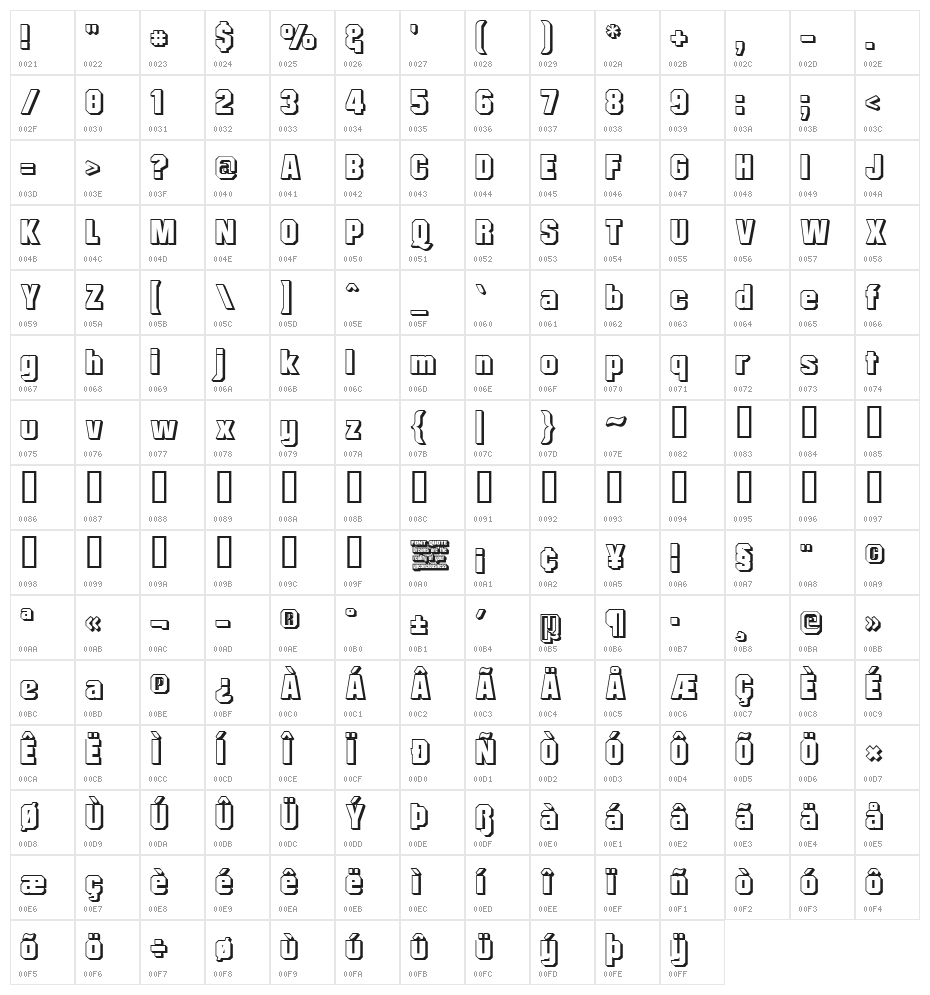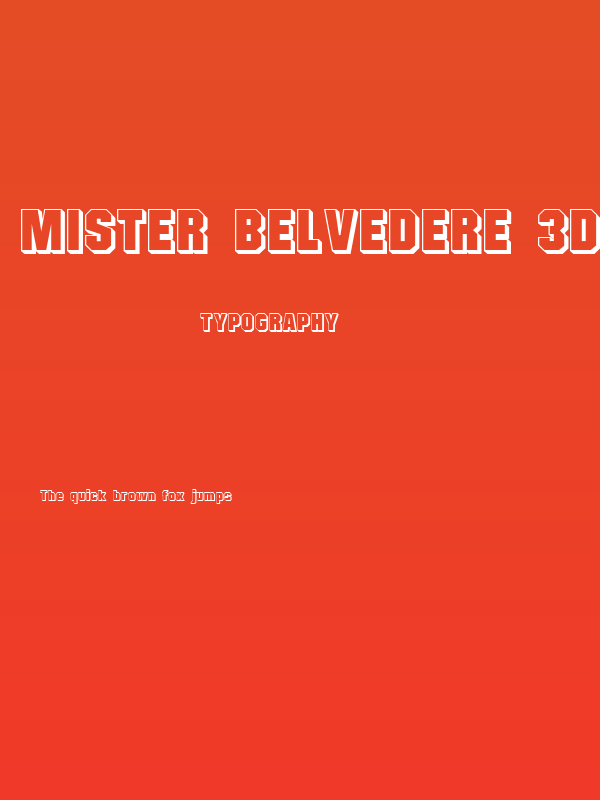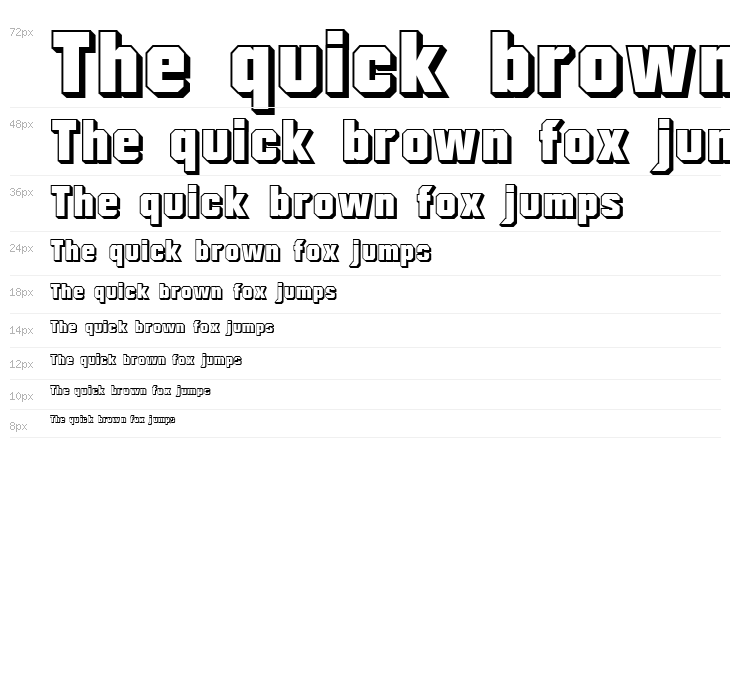
Mister Belvedere 3D Font
Mister Belvedere 3D Description
This bold and striking font features a three-dimensional effect that gives it a strong, impactful presence. The characters are blocky and robust, with a shadow that enhances the 3D illusion. The uppercase and lowercase letters maintain a consistent style, with sharp angles and clean lines. Numbers and special characters are equally bold, ensuring uniformity across all text. The font's design is reminiscent of retro or vintage styles, making it ideal for projects that require a touch of nostalgia or a bold statement.
| Proposed Projects | Ideal for posters, headlines, logos, and any design requiring a bold, vintage aesthetic. |